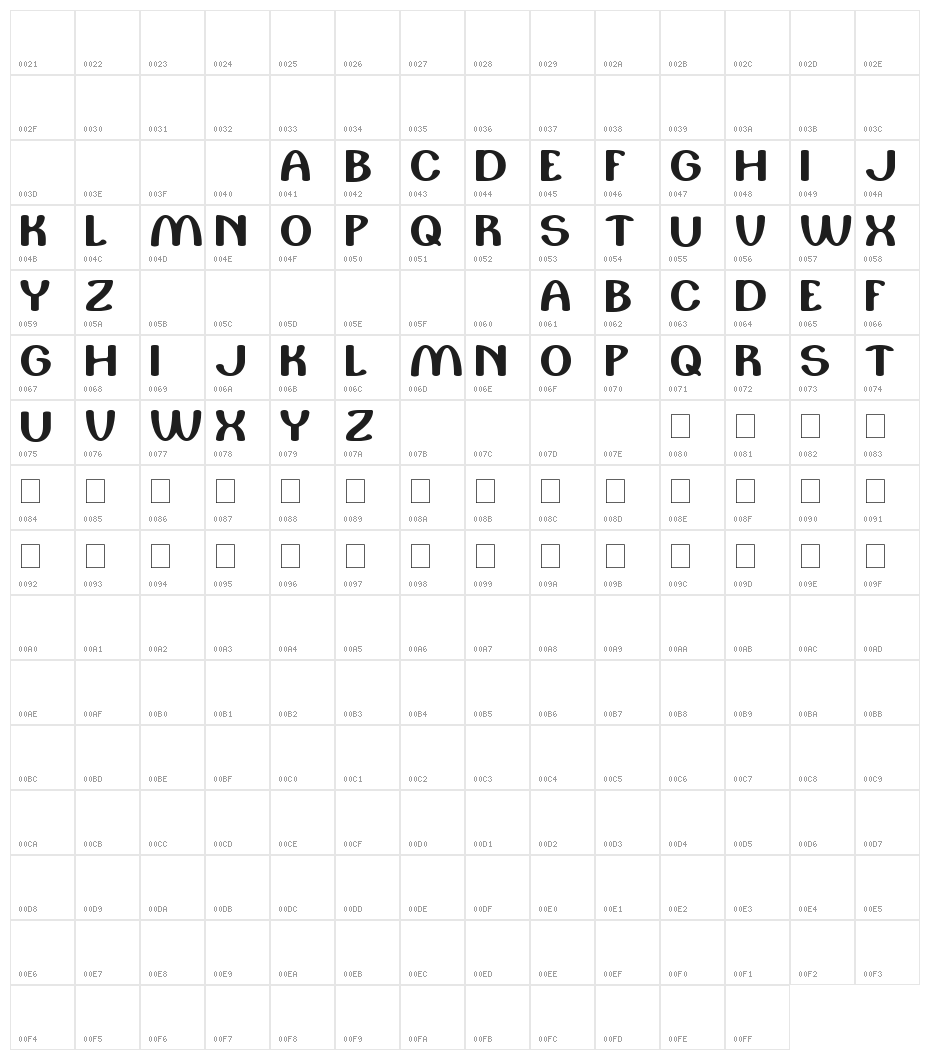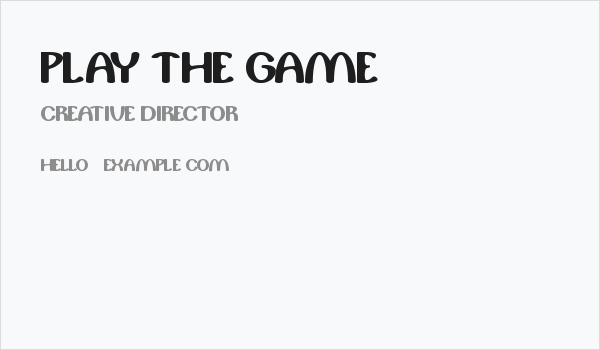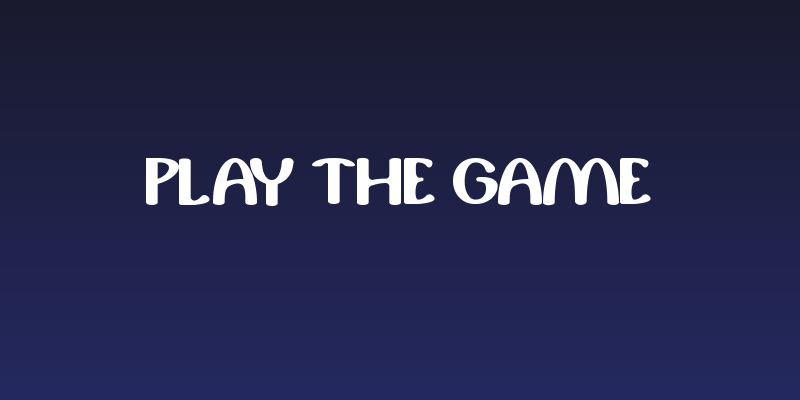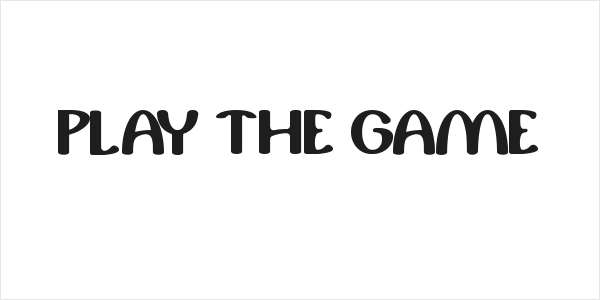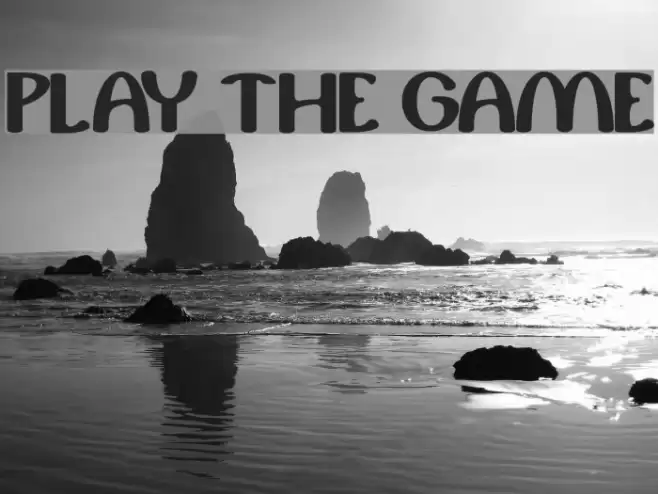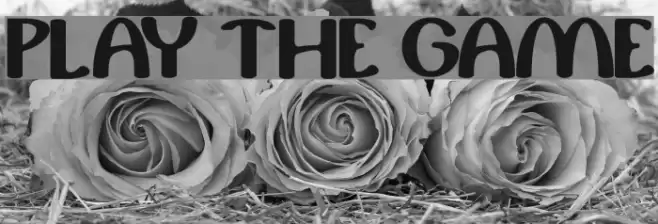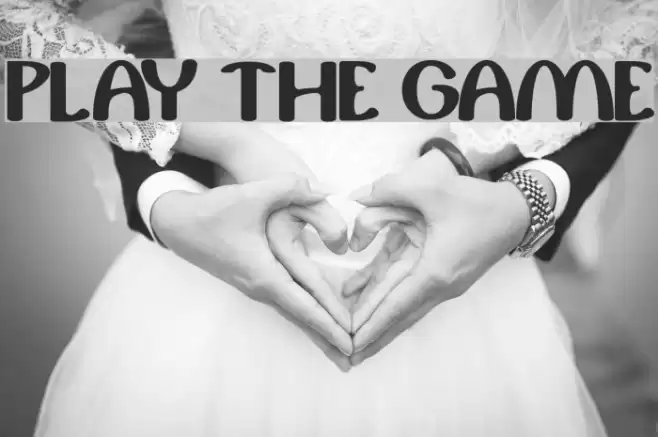
play the game Font
play the game Description
This font features a playful and bold style with rounded edges and a whimsical appearance. The characters are uniformly thick, giving it a strong presence while maintaining a friendly and approachable look. The uppercase and lowercase letters share a consistent design, with a slight variation in height and width that adds to its charm. The font's unique curves and loops create a sense of movement and energy, making it ideal for projects that require a fun and lively aesthetic. Its boldness ensures readability, even at smaller sizes, while the rounded forms soften its overall impact.
| Proposed Projects | Ideal for children's books, playful branding, event invitations, and creative posters. |